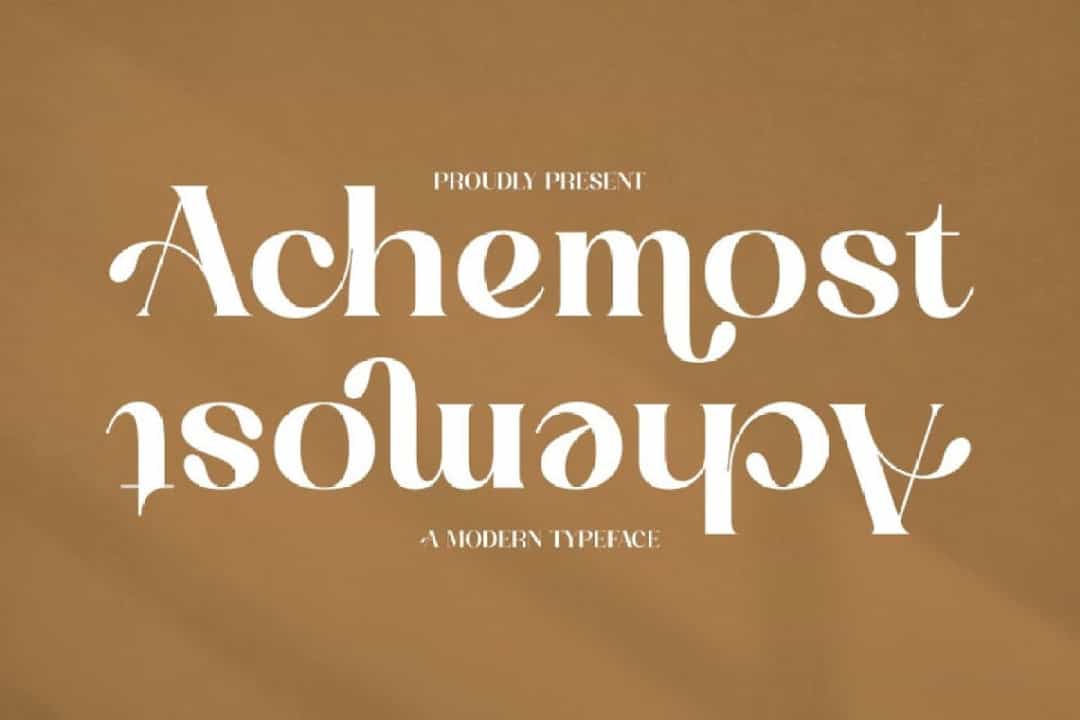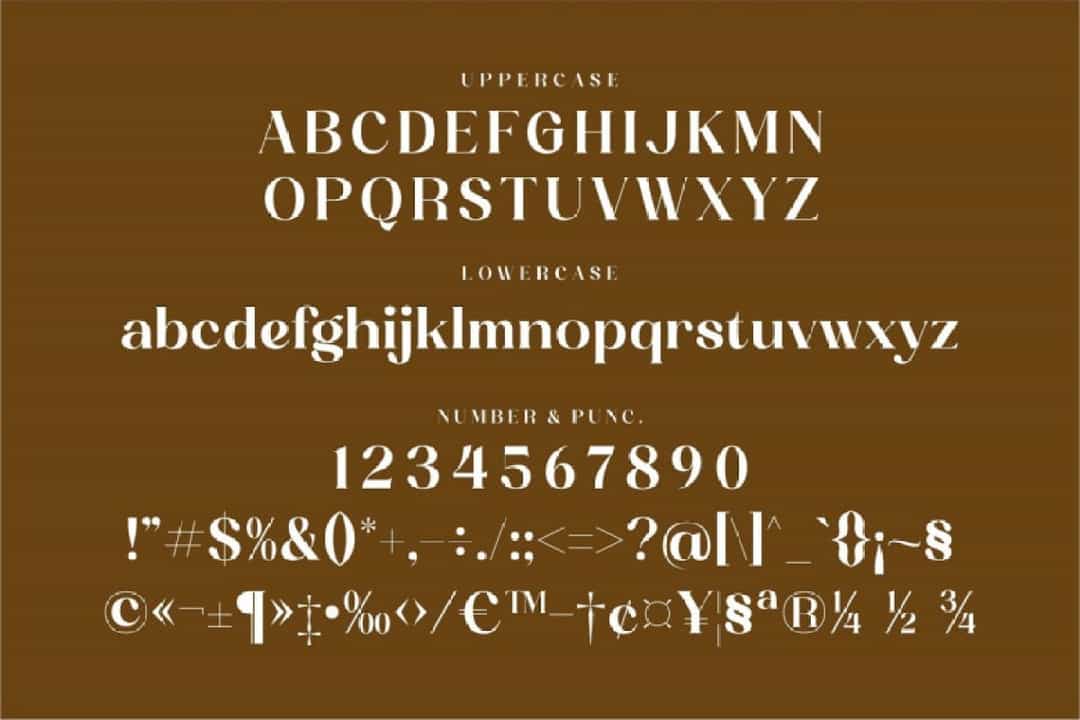
Achemost is an elegant yet contemporary serif typeface with its distinctive style and appearance, perfect for creating luxurious logos, movie or book styles, fashion label clothing designs, magazine letters and quotes, among other projects. This typeface provides endless opportunities for creation!